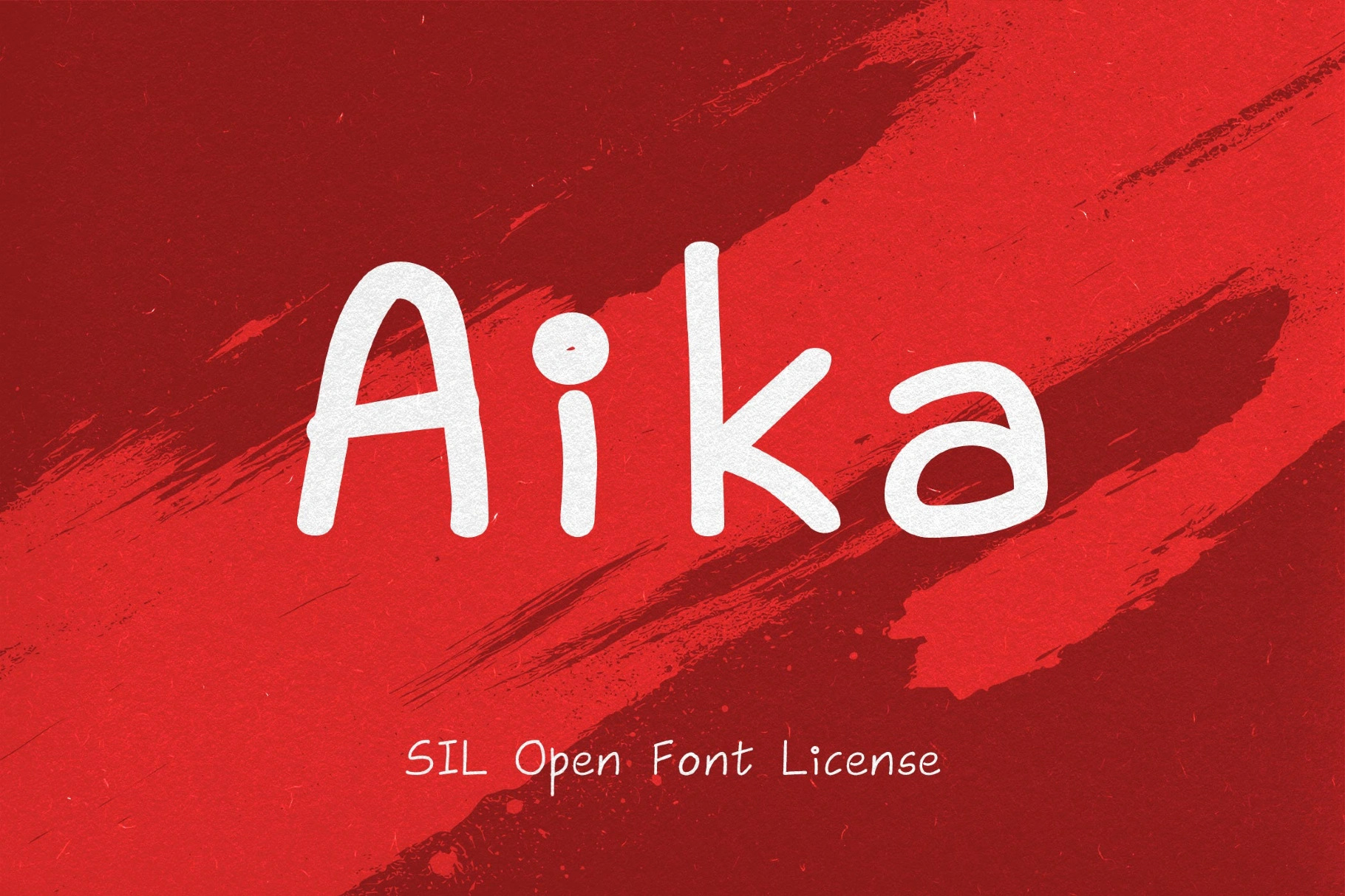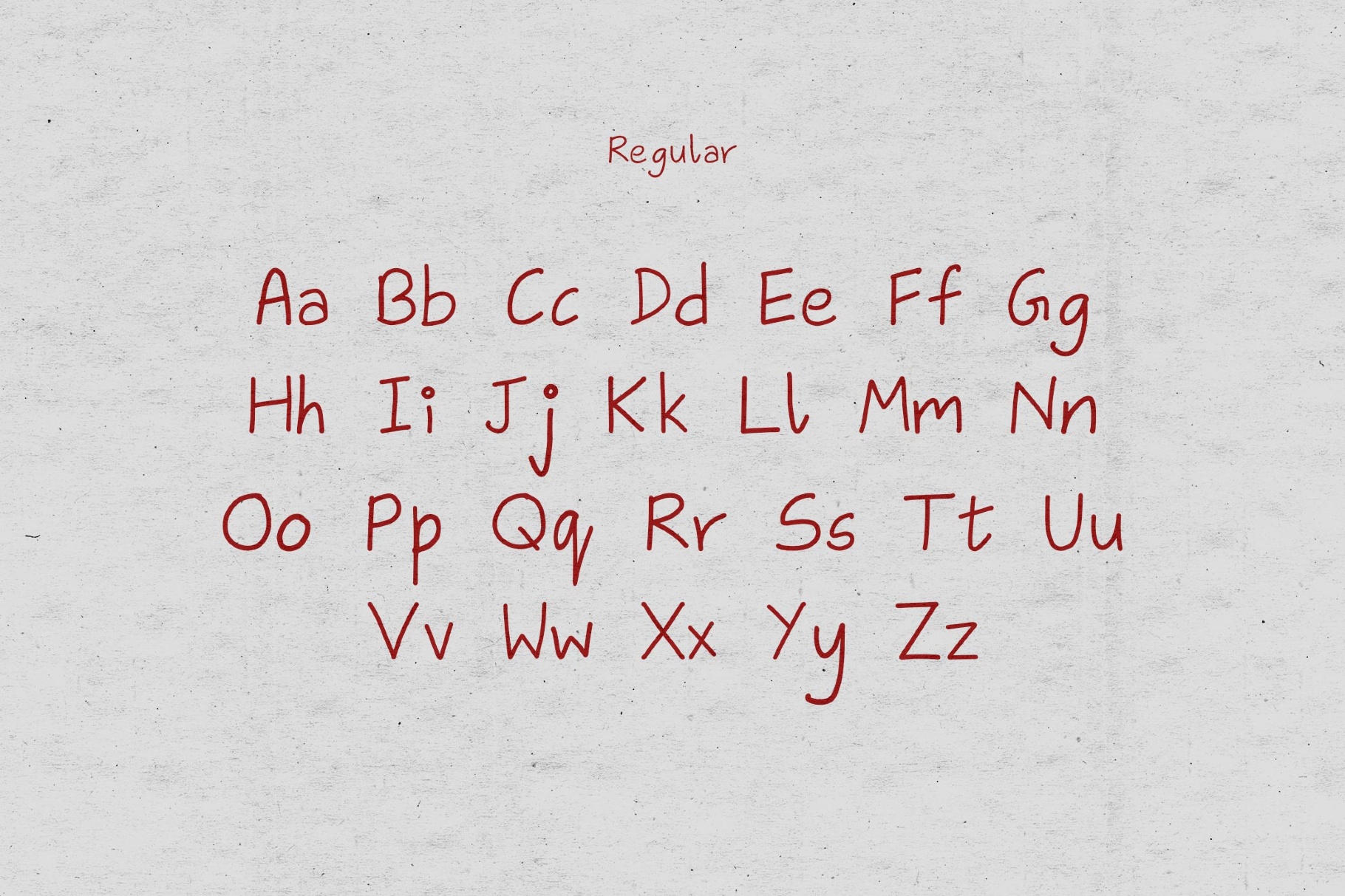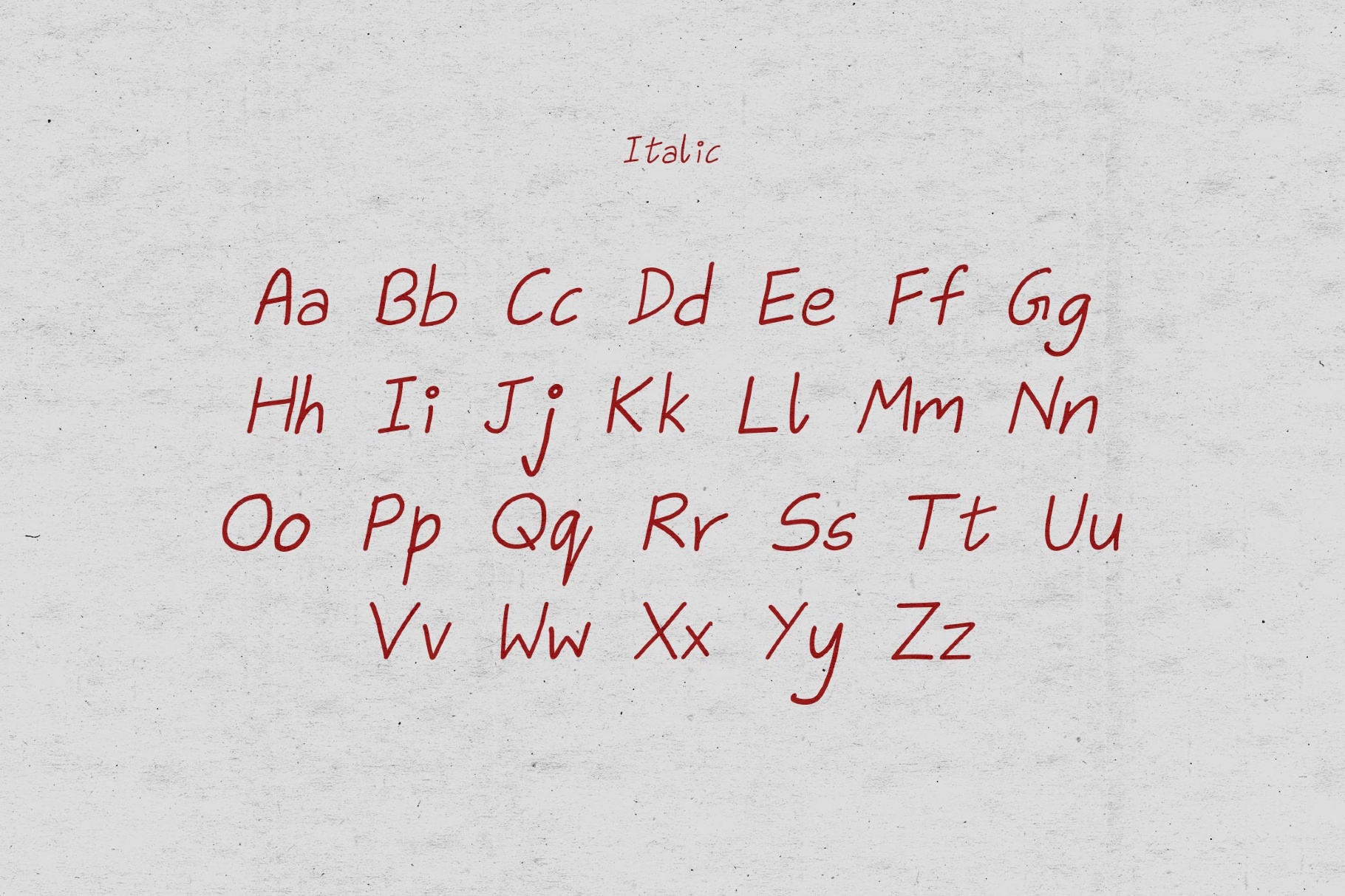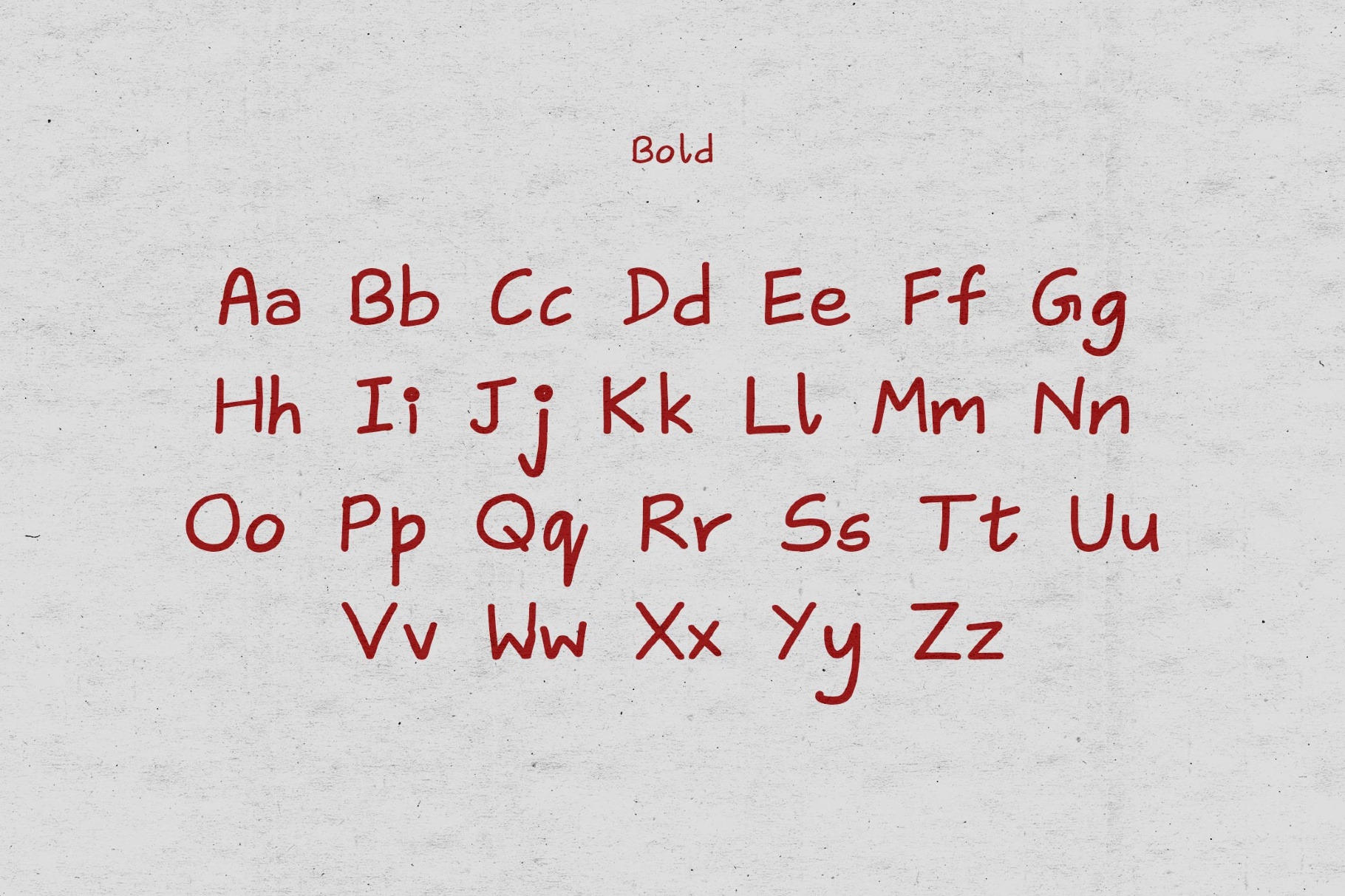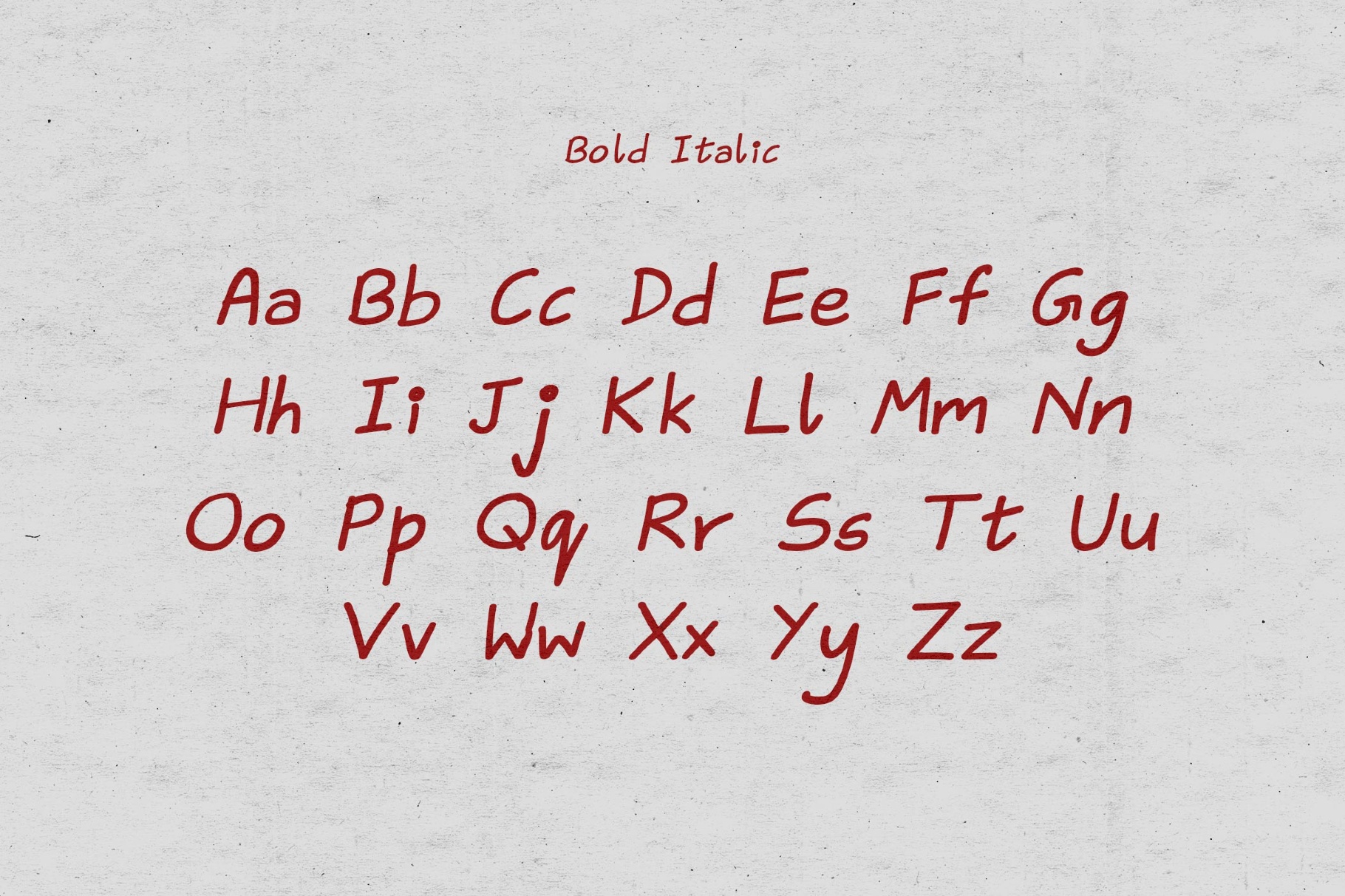
Aika - Fun Handwriting Font
Aika brings a sharply cut geometric style with the cool precision of Japanese poster design, synth-era interfaces, and late-20th-century techno graphics, shaped by narrow proportions and crisp angular turns. This fun handwriting font works well for branding, poster headlines, editorial covers, album art, motion graphics, packaging and social visuals.
- Uppercase & lowercase;
- Numerals, punctuation & symbols;
- 4 weights.